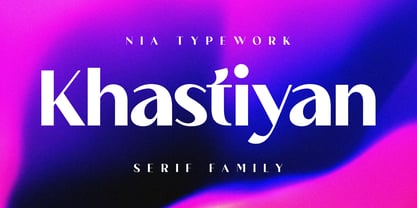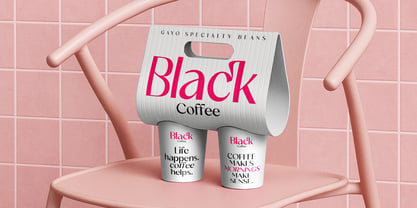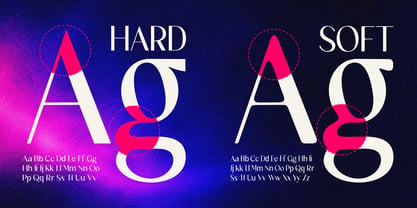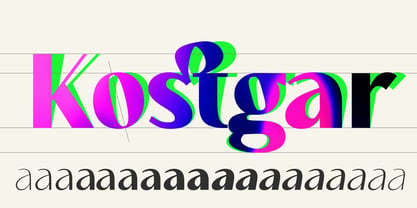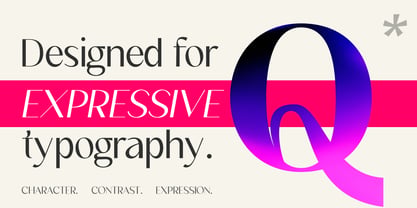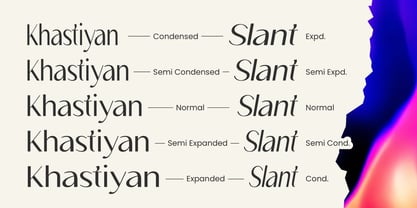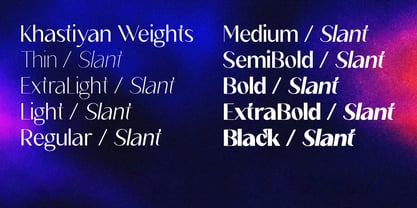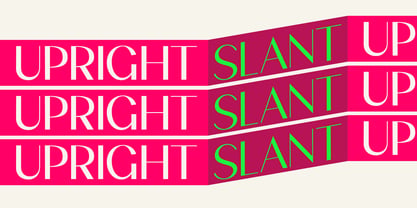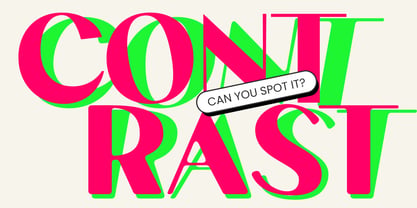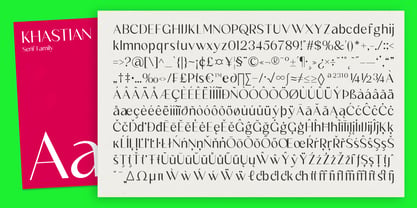
Khastiyan
La familia tipográfica Khastiyan fue diseñada por Mauli Zari, Nia Octarina y publicada por Nia Typework. Khastiyan contiene 181 estilos y opciones de paquete familiar. Más información sobre esta familia
Khastiyan is a modern sans display typeface crafted to make a bold and memorable statement. Combining clean geometric construction with elegant curves and distinctive letterforms, it delivers a sophisticated balance between contemporary minimalism and expressive personality. Designed for impactful visual communication, Khastiyan excels in branding, headlines, advertising, packaging, and editorial design. Its strong presence and refined details create a striking aesthetic that remains highly readable across a variety of creative applications.